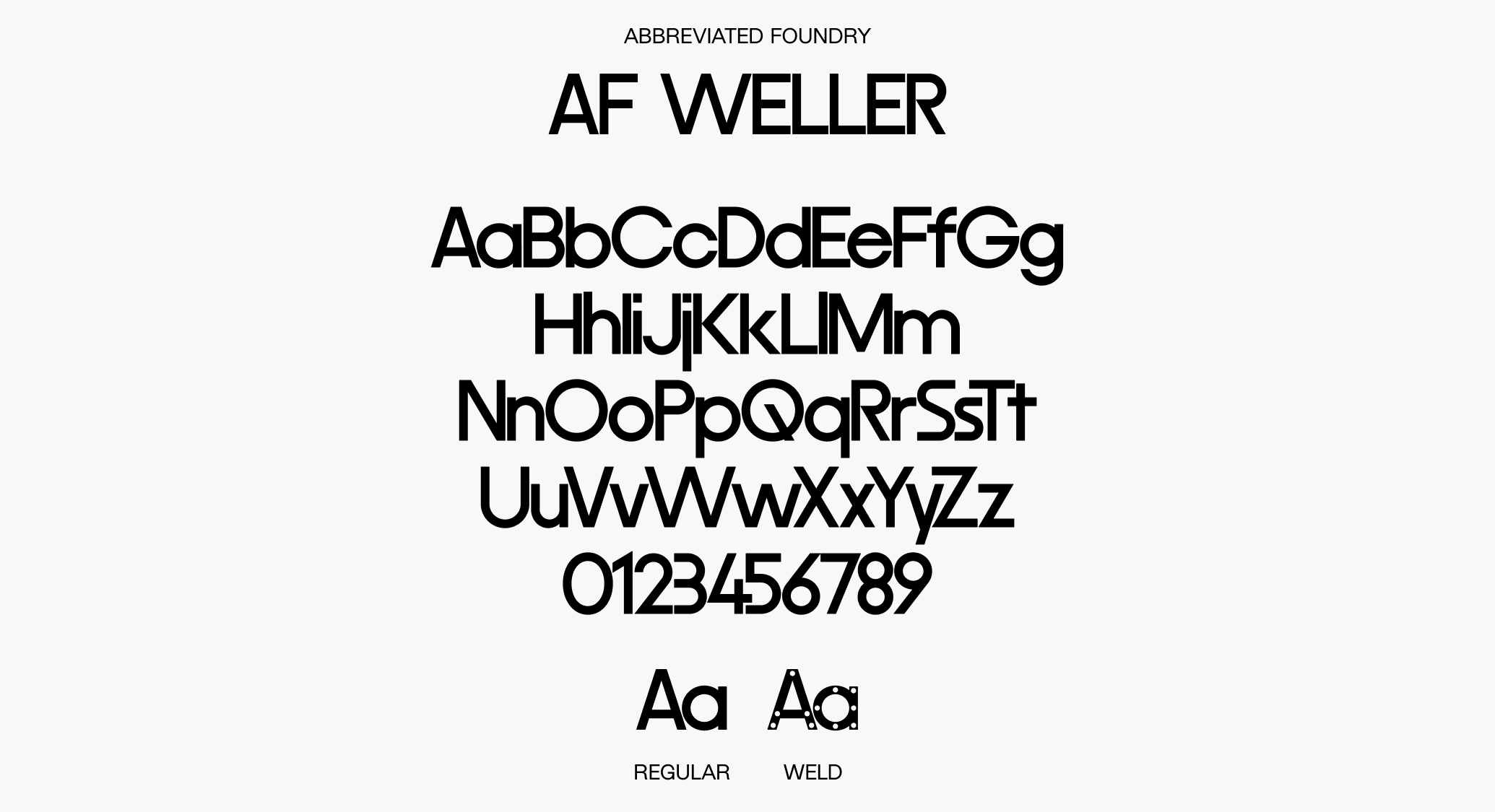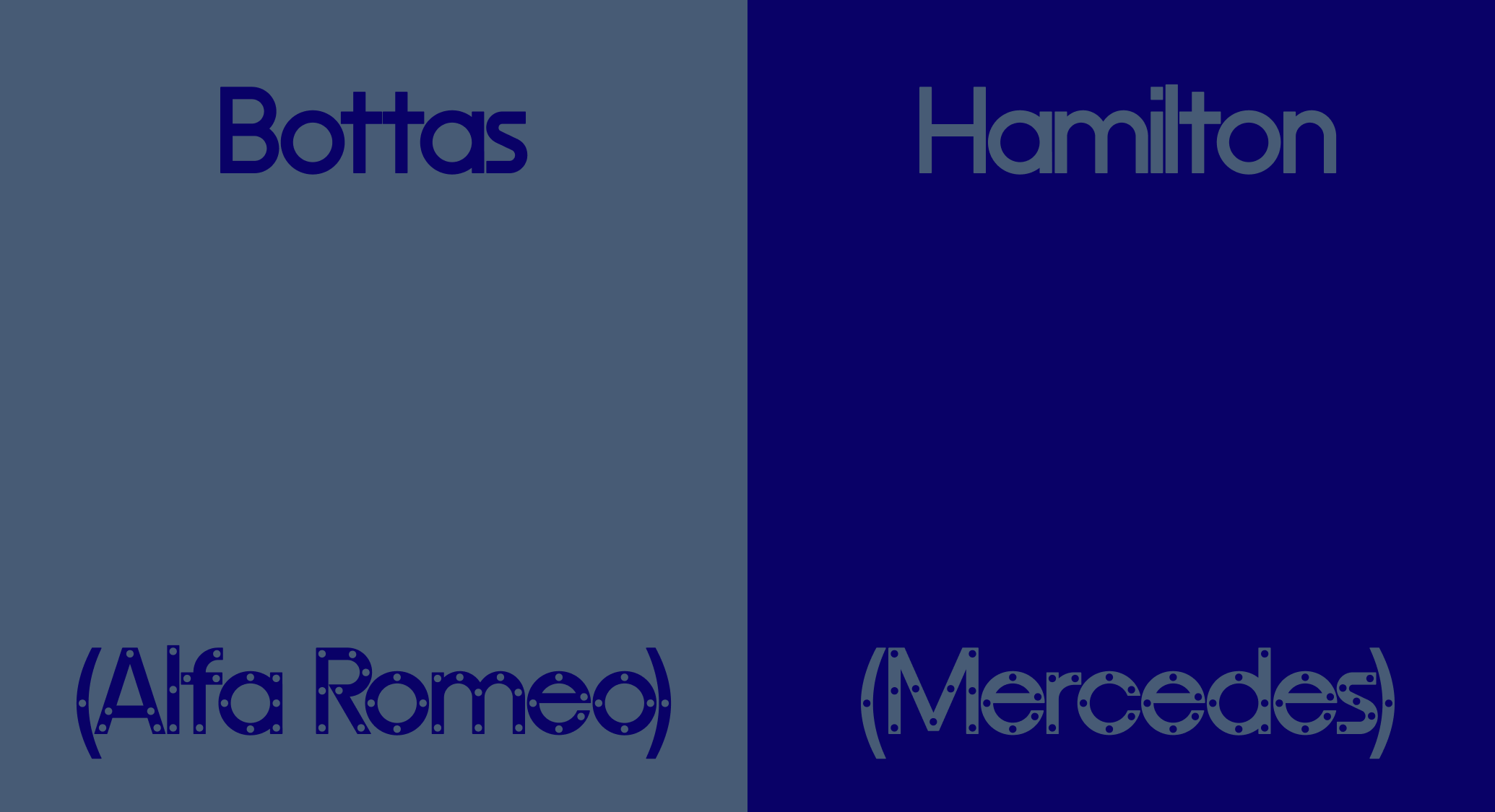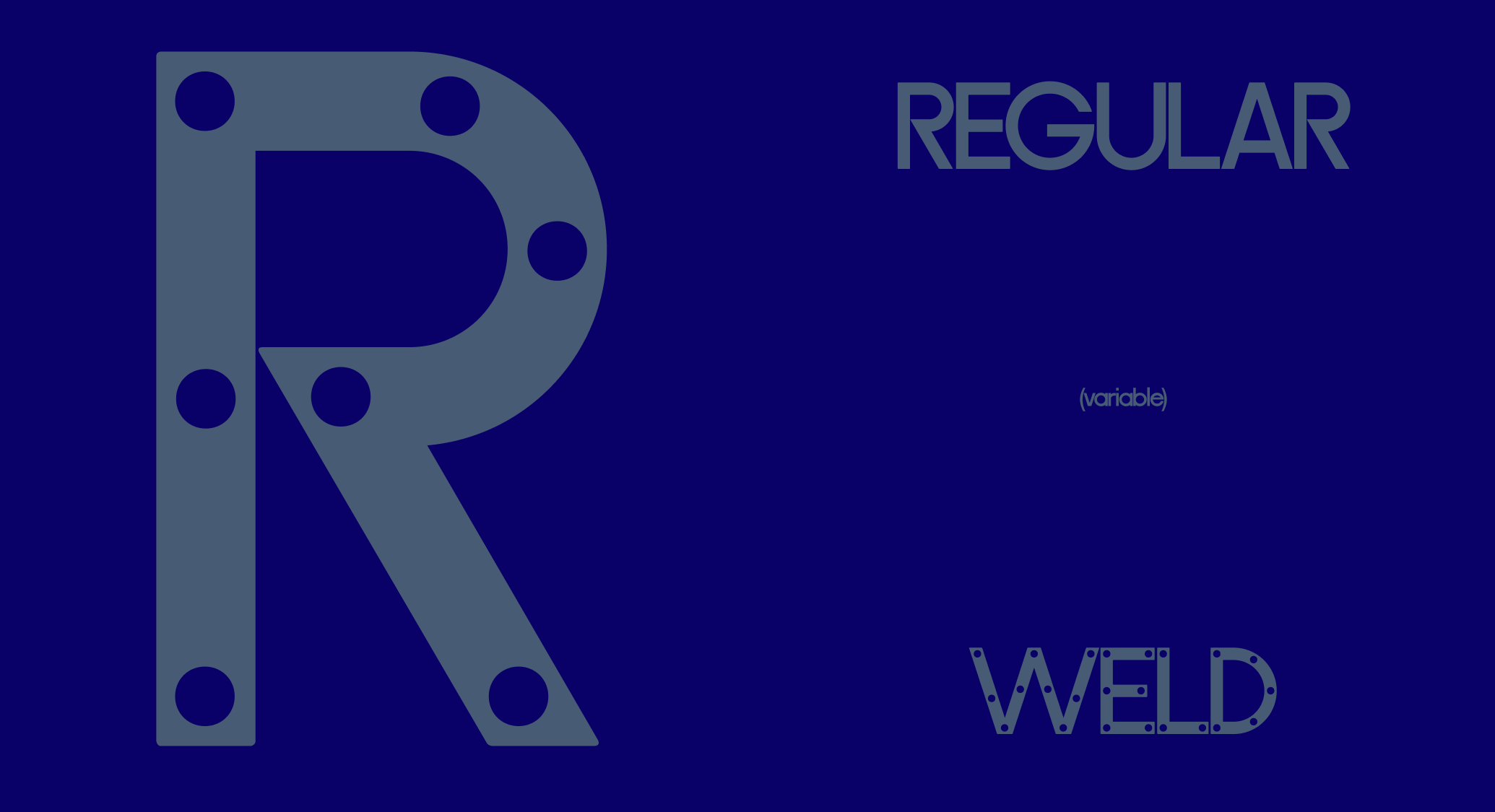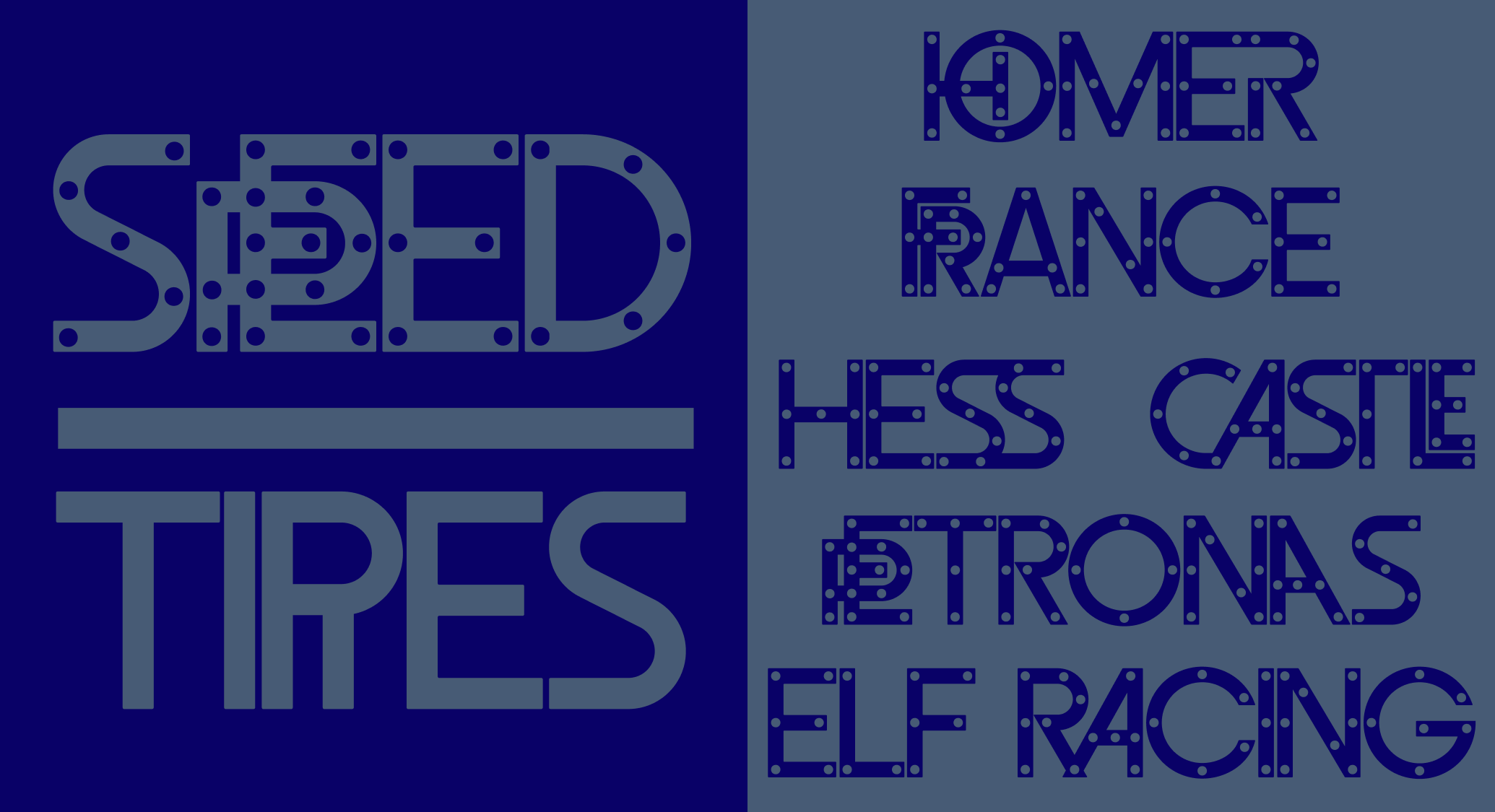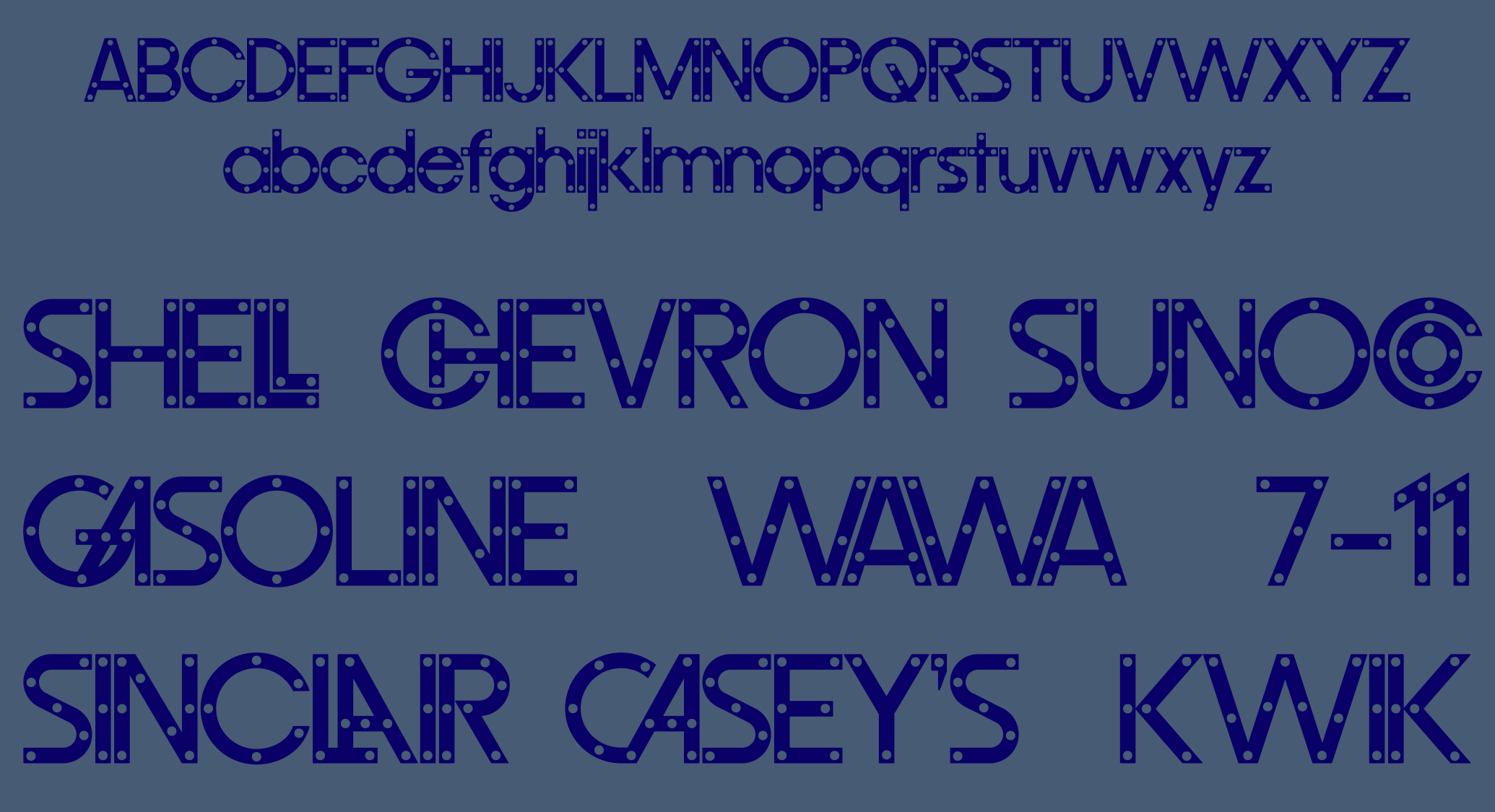
AF Weller
AF Weller is a finely tuned mechanical wonder. It answers the question: what if Herb Lubalin designed Avant Garde in the distant future? Offered in two styles, Regular and Weld, this characterful sans-serif comes fully loaded with discretionary ligatures and alt forms, offering designers a well-stocked toolkit for building unbreakable assets. In longer stretches of text, Weld’s naturally aspirated surface glitters like a freshly polished engine.